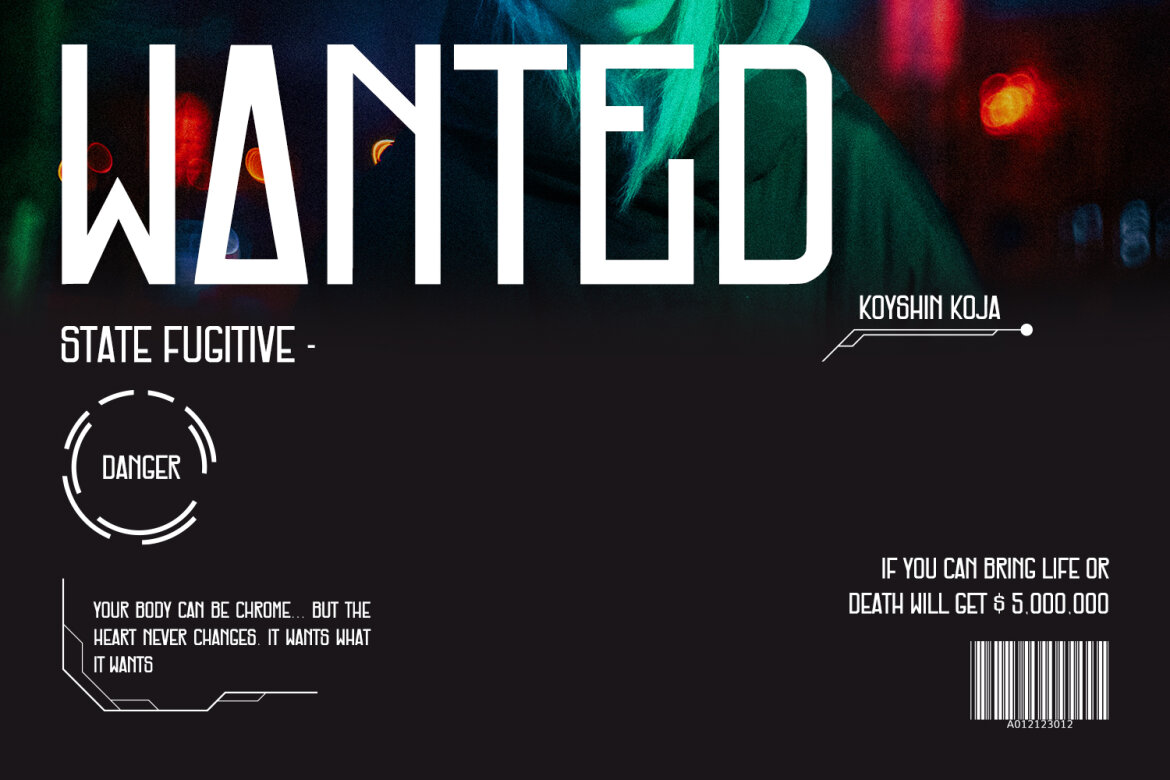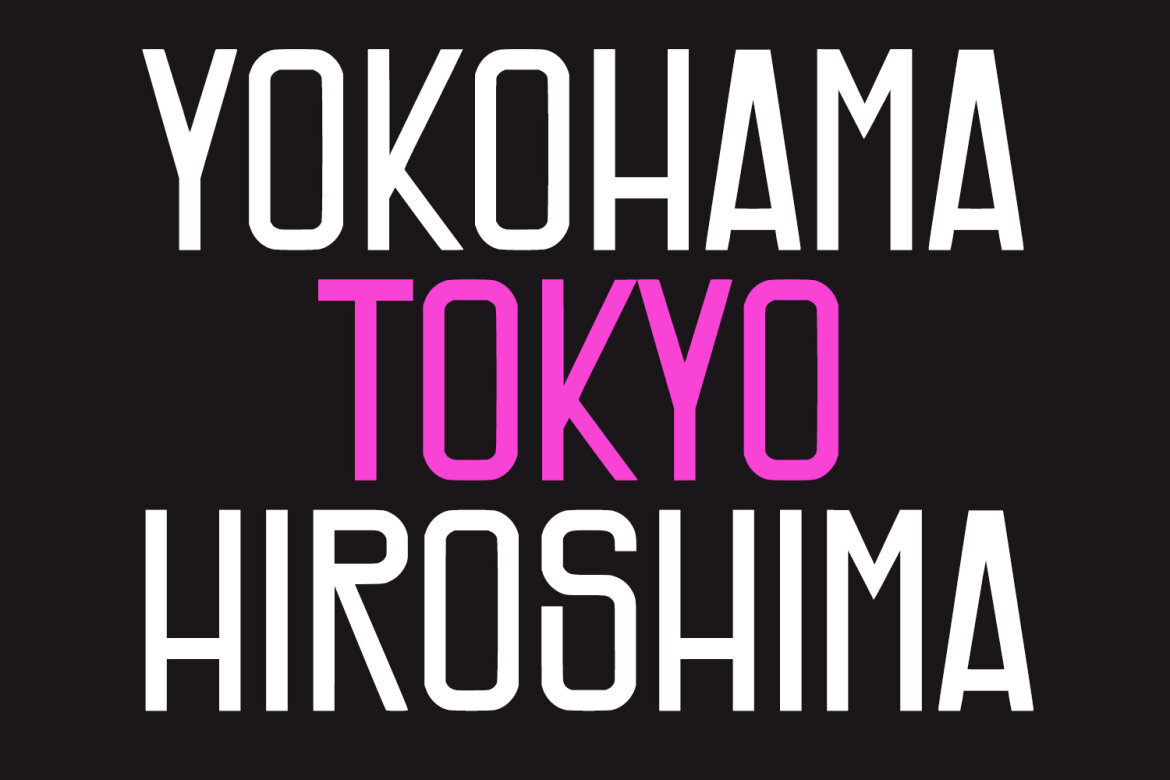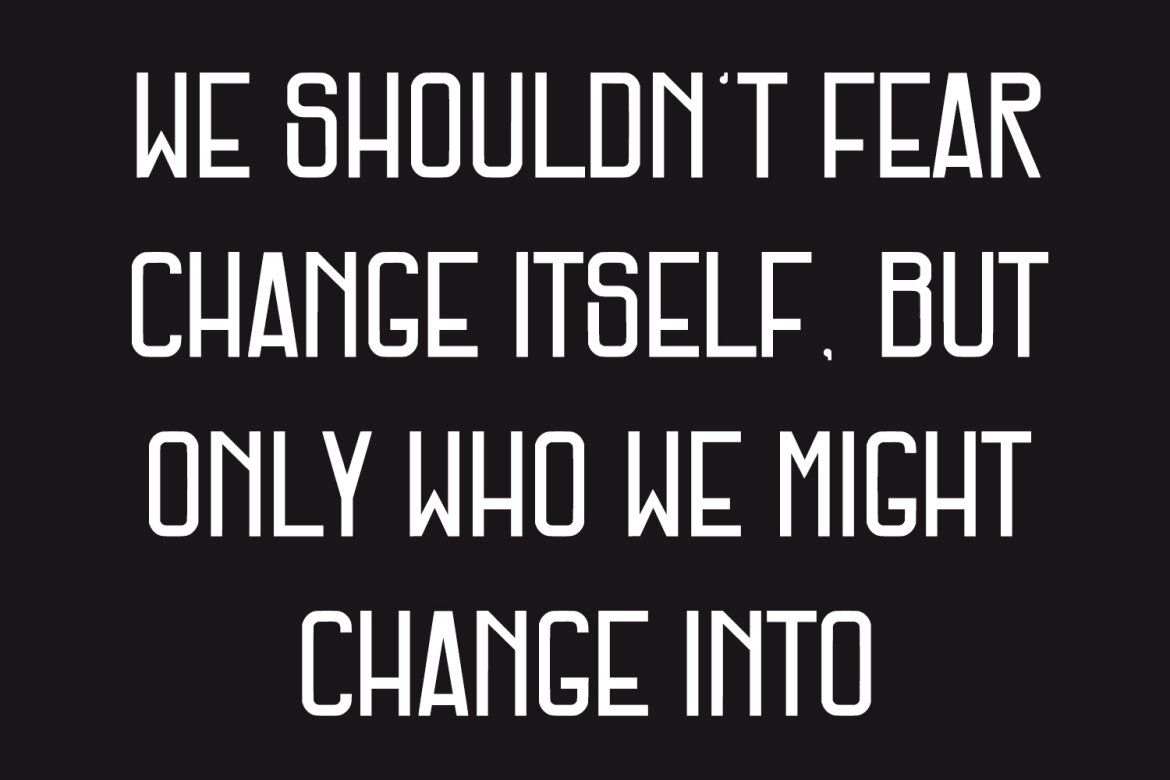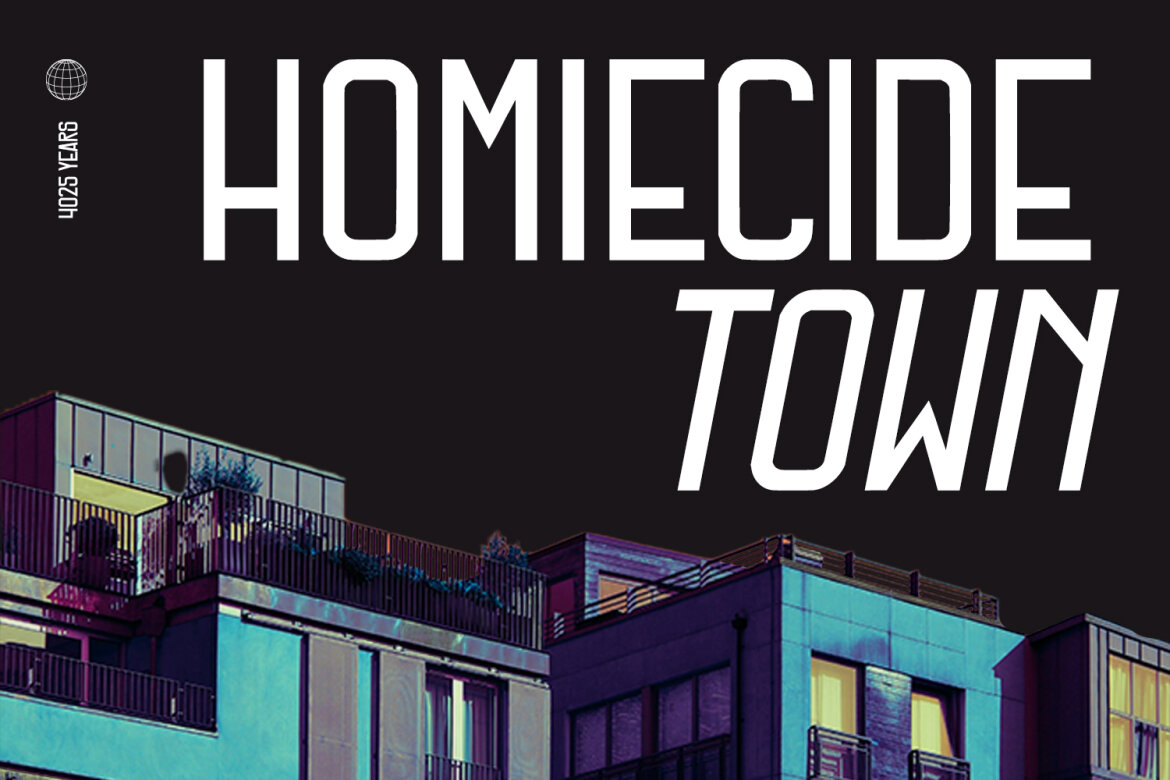
Kagami Sans Display FREE Font
Kagami
Kagami is a modern sans serif display font. With bold condensed stroke and fun character. To give you an extra creative work, Kagami font support multilingual more than 100+ language. This font is good for logo design, Social media, Movie Titles, Books Titles, a short text even a long text letter and good for your secondary text font with signature or script typeface. Make a stunning work with Kagami font.